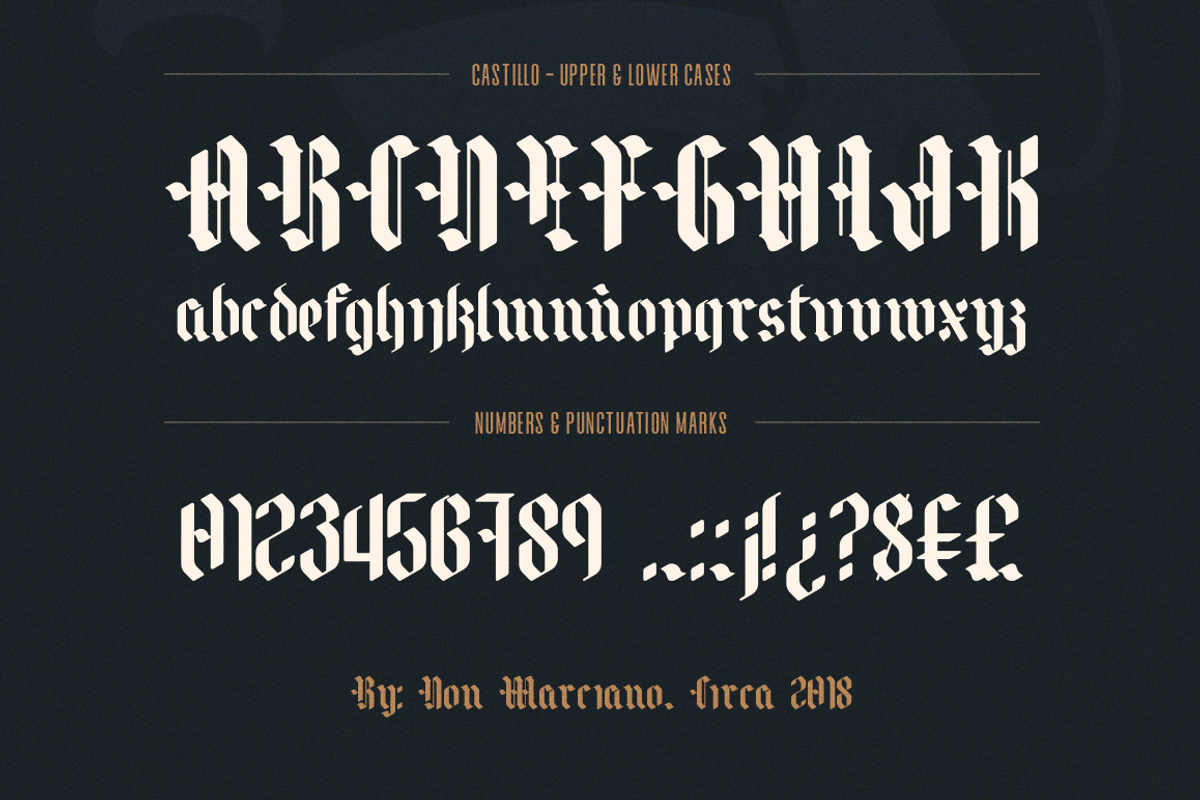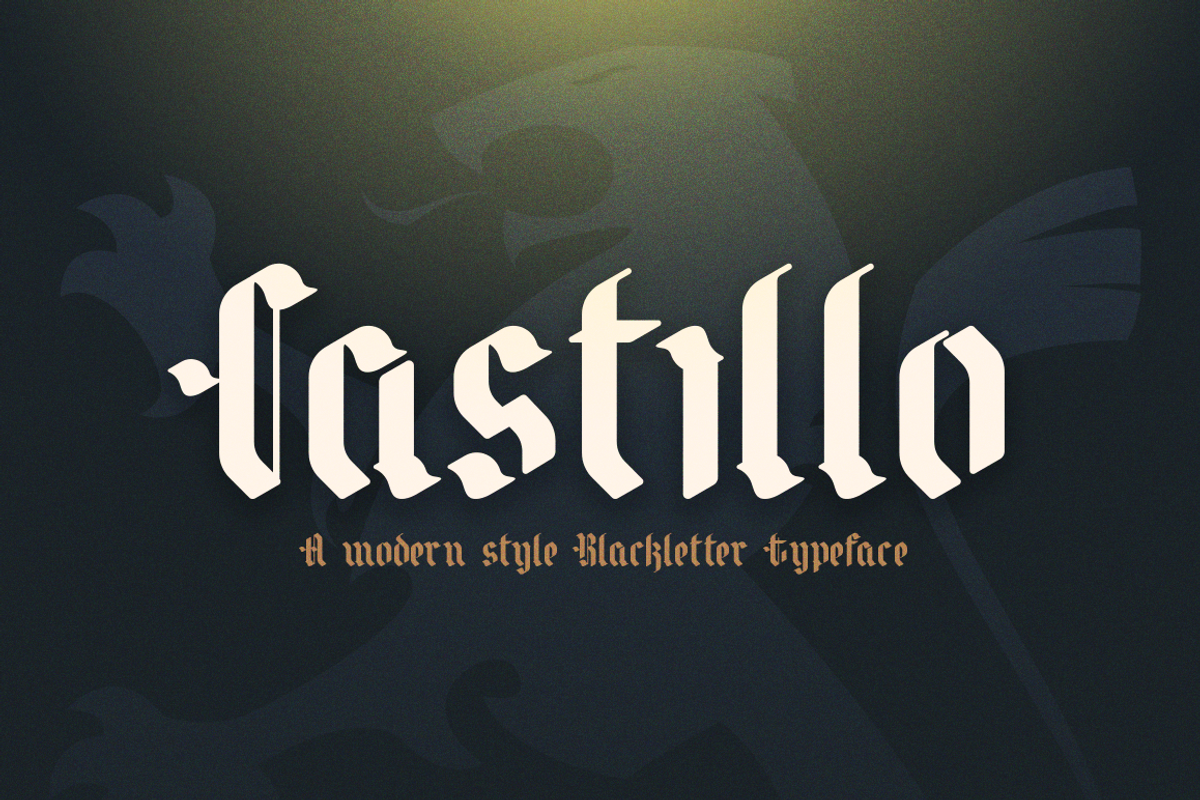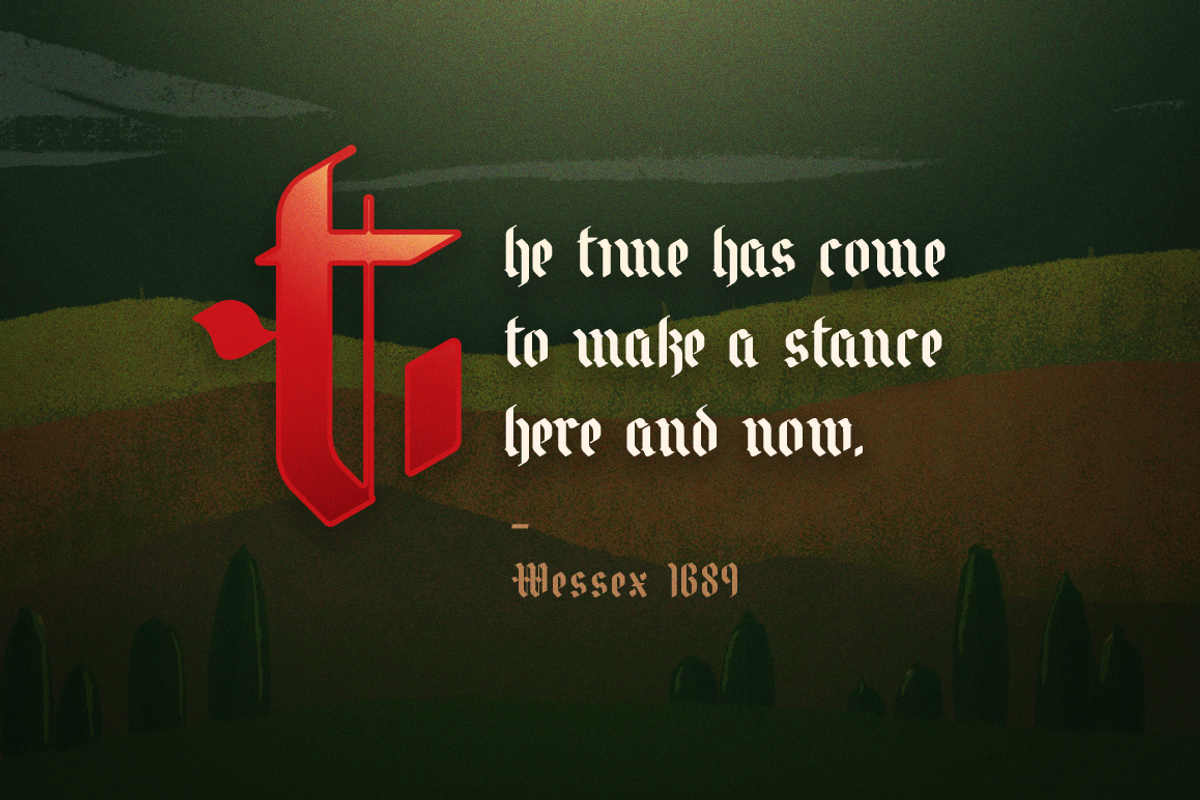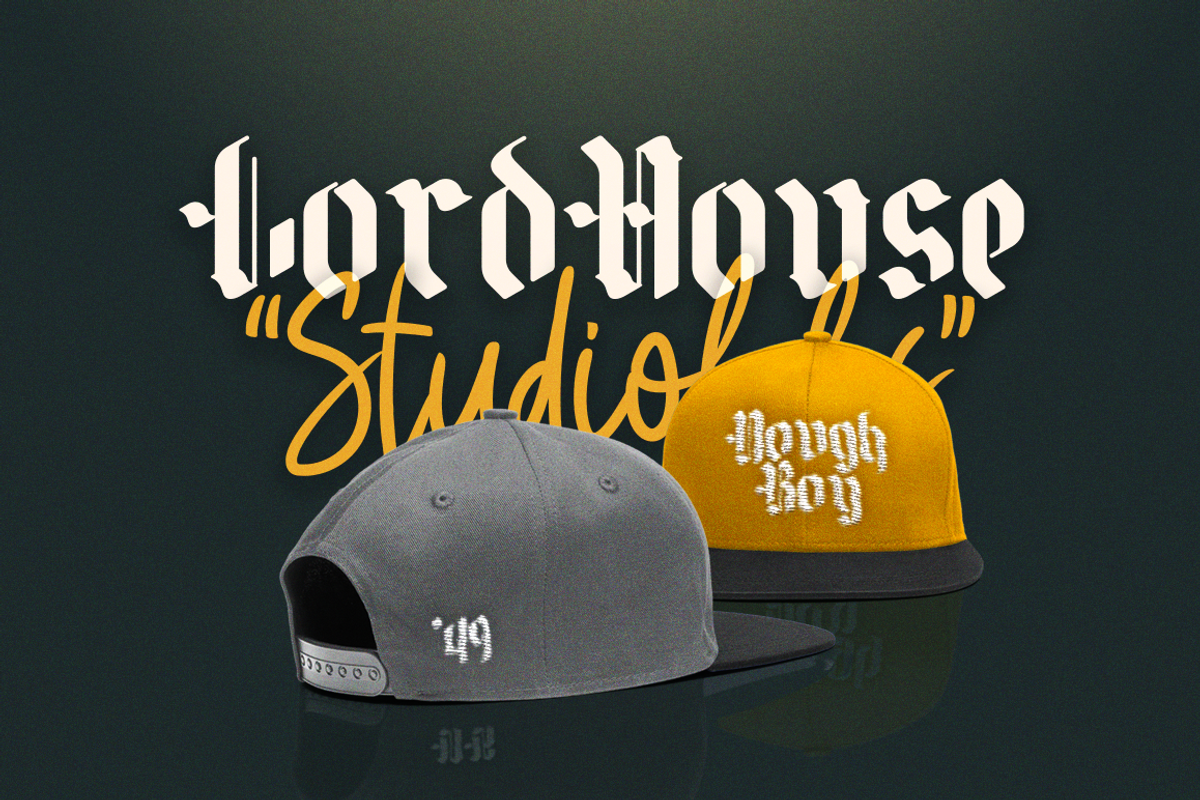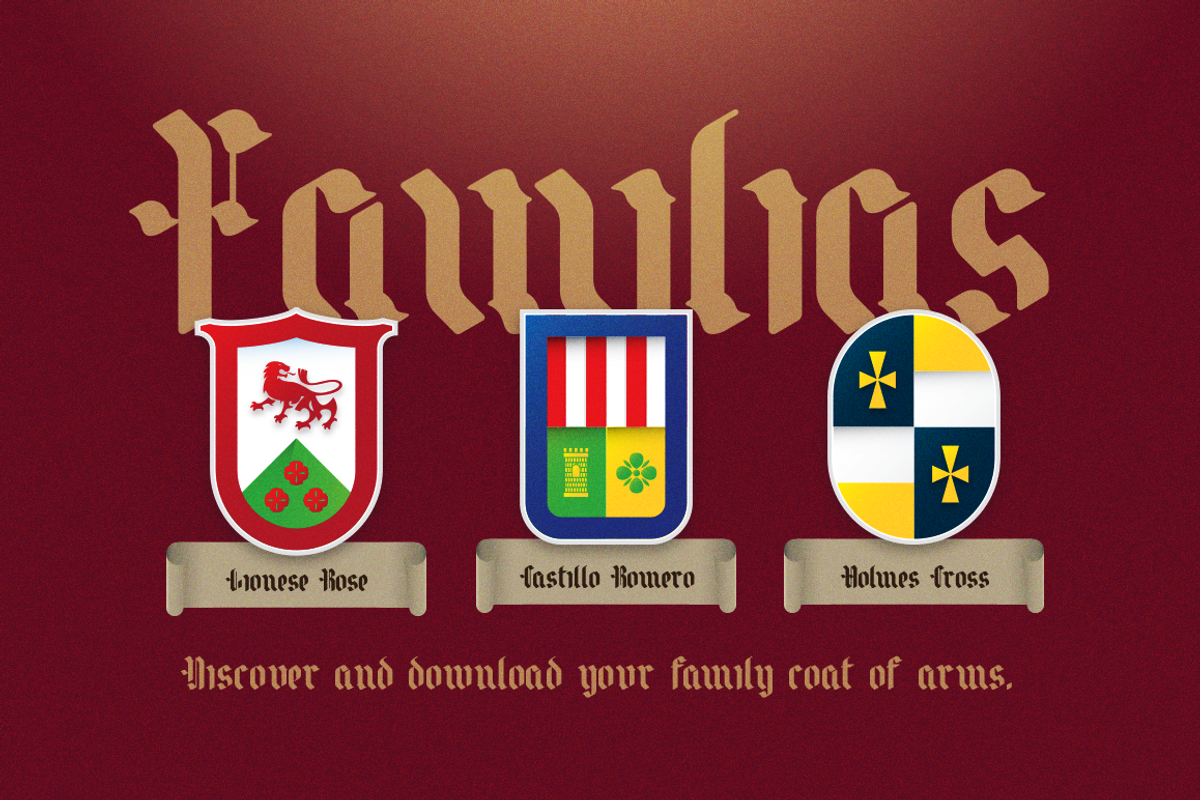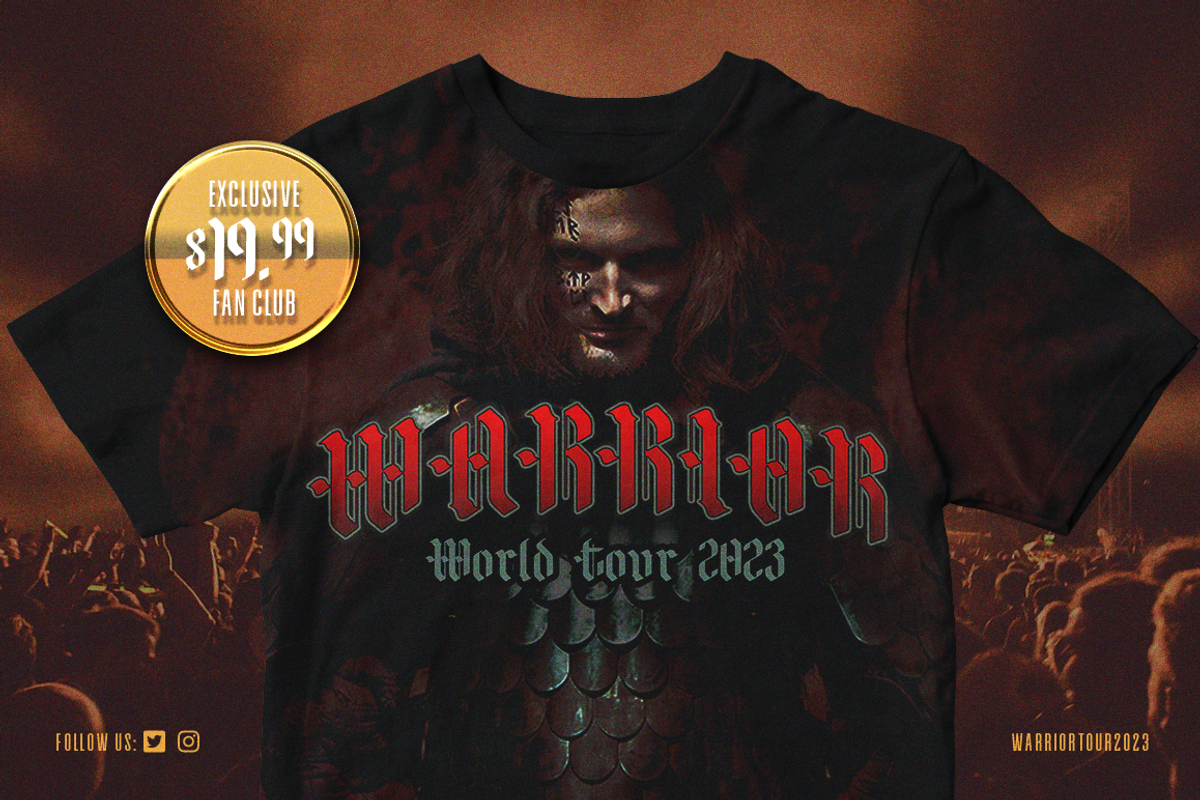
Castillo
Castillo is a blackletter type, design with multiple uses in mind for any kind of project that needs a yesteryear feel, such as logos, promotional material, apparel, and prints like an invitation, greeting cards, and posters; inspired initially by the research of my family’s shield and emblem, with slick and clean lines, comes a bold typeface that brings together the cool style of early lettering and the modern look of today's design.